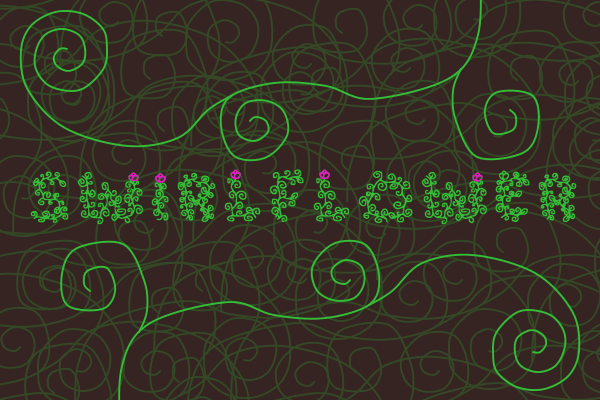
Behold the magical world of Swirlflower Font, a decorative font that flows with delicate spirals, graceful leaves, and vibrant flowers. This charming creation of Marlee Pagels is not just a font; it's an artistic journey that transforms your words into flourishing masterpieces.
With Swirlflower Font, your designs will take on a new life. Its enchanting characters, dancing across the page like petals in a gentle breeze, infuse a touch of nature's allure into any project. Whether it's an elegant wedding invitation, a heartfelt letter, or a playful social media post, Swirlflower Font adds a whimsical touch that captivates.
Step into a realm where imagination and creativity intertwine. Swirlflower Font is more than just a typeface; it's a delightful play of shapes and forms that evoke the essence of a blooming garden. Its enchanting curves and intricate details will paint a picture of beauty that resonates with your audience.
Unleash the magic of Swirlflower Font today. Discover a world where words come alive, and designs flourish with elegance and grace. Let your creativity bloom with this captivating font that turns ordinary text into captivating works of art. Dive into the realm of Swirlflower Font and experience the enchantment!